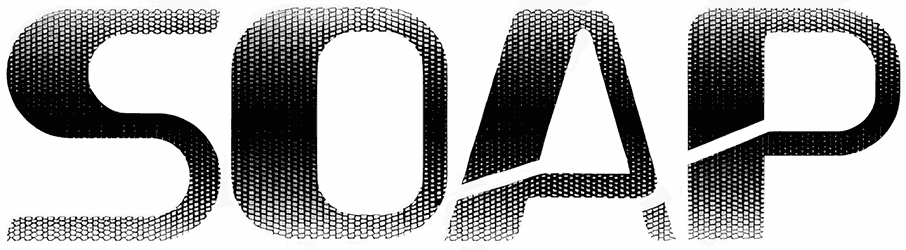
Soap Font
Soap is an excellent science fiction font for making your project stand out. This techno font with dirty and boxy elements is perfect for adding a rough and strong touch to your project. Soap is a great alternative font for making posters, flyers, advertisements, or promotions, as well as other documents. You should be aware that this font lacks lowercase letters.